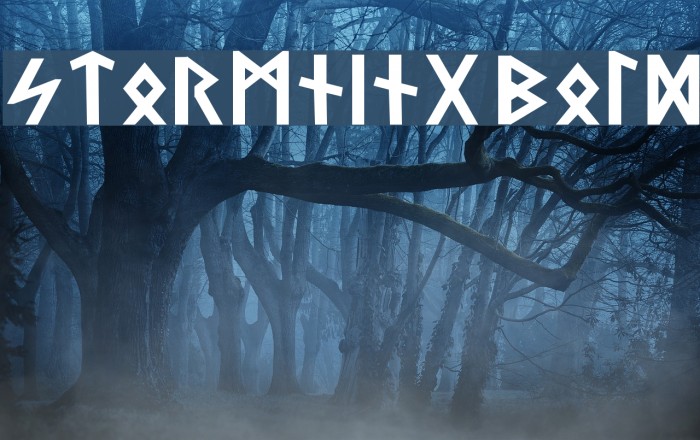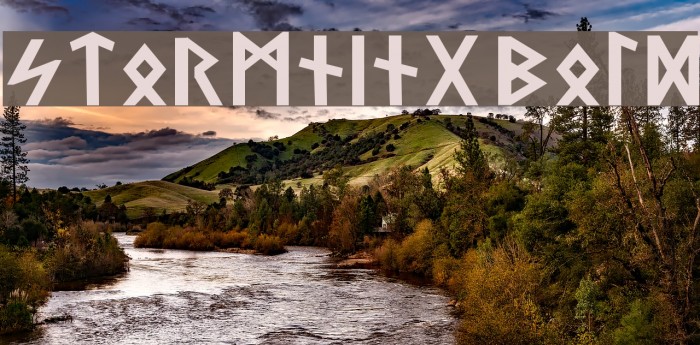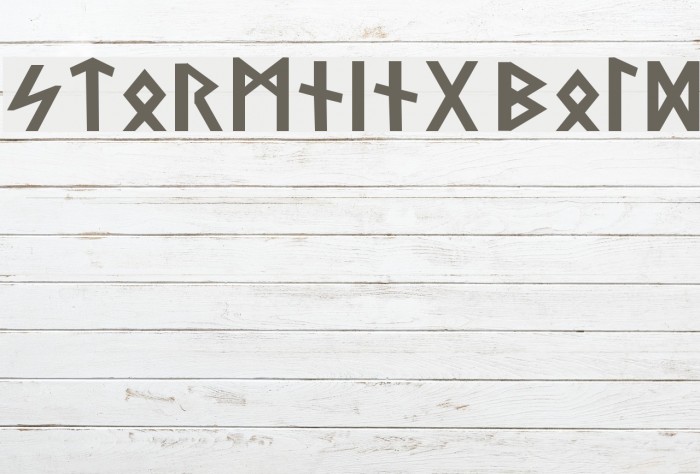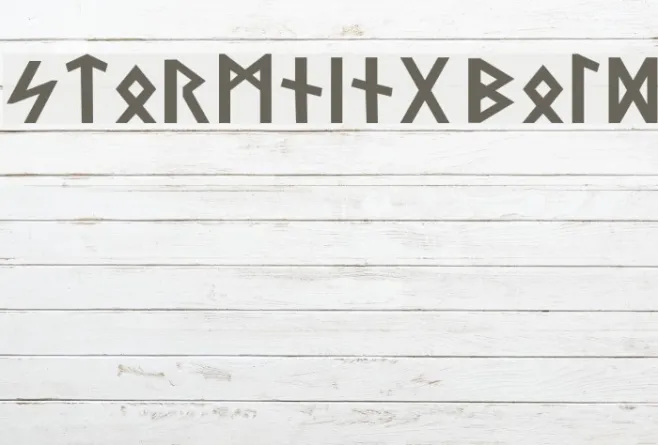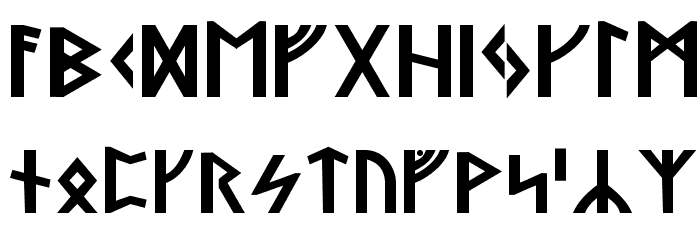
Stormning Bold Font
This font features a bold and angular design, reminiscent of ancient runic alphabets. The characters are constructed with sharp, geometric lines and strong angles, giving it a distinctive and striking appearance. The uppercase letters are particularly bold, with unique embellishments that add to the font's decorative nature. The lowercase letters maintain the same angular style, ensuring consistency throughout the typeface. The numbers and special characters are designed to match the overall aesthetic, making this font ideal for projects that require a bold, historical, or mystical feel.
A bold, angular font inspired by ancient runic alphabets with a striking geometric design.